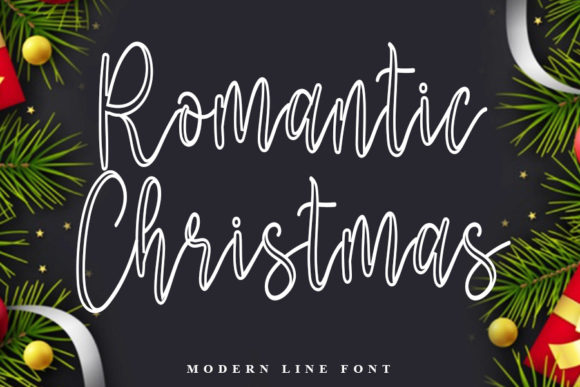
Unleash the magic of the season with Romantic Christmas, a captivating cursive handwritten font that embodies the spirit of the holidays. This enchanting font family offers an elegant touch to your creative projects, bringing a sense of joy and warmth to every design. With its graceful lines and playful character, Romantic Christmas is the perfect choice for adding a personal touch to wedding invitations, thank-you cards, logos, and more.
Immerse yourself in the beauty of Romantic Christmas, a font designed to evoke the charm and whimsy of the holiday season. Its sweeping flourishes and delicate curves dance across the page, creating a visual masterpiece that captures the essence of the festive spirit. Whether you're designing invitations for a winter wedding or creating heartwarming greeting cards, Romantic Christmas will add a touch of magic to your creations.
With its versatile style, Romantic Christmas adapts effortlessly to a wide range of design projects. Its flowing script adds a touch of elegance to logos, branding materials, and social media posts, while its playful charm shines through in invitations, posters, and flyers. Unleash your creativity and explore the endless possibilities of Romantic Christmas, letting its enchanting characters bring your designs to life.
Step into a world of enchantment with Romantic Christmas, a font that transports you to a winter wonderland. Its graceful strokes and whimsical details evoke the magic of the holiday season, making it the ideal choice for capturing the essence of Christmas in your designs. Let the spirit of the holidays flow through your creations as you embrace the captivating beauty of Romantic Christmas.